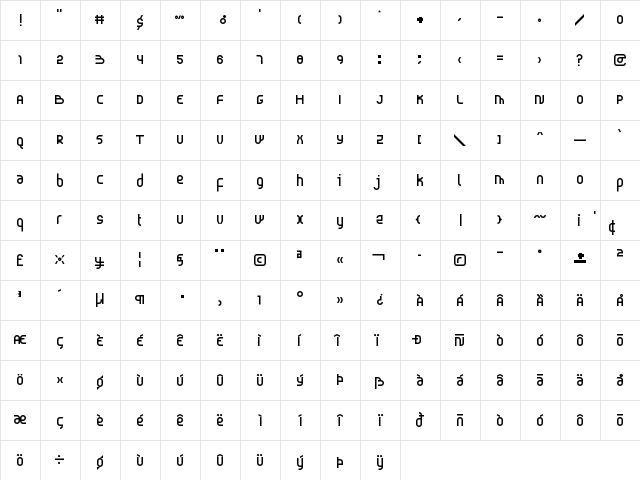
Probolinggo Regular
Design Context for Probolinggo Typeface
Probolinggo is a composed and adaptable typeface that performs quietly and consistently across a wide range of design contexts.